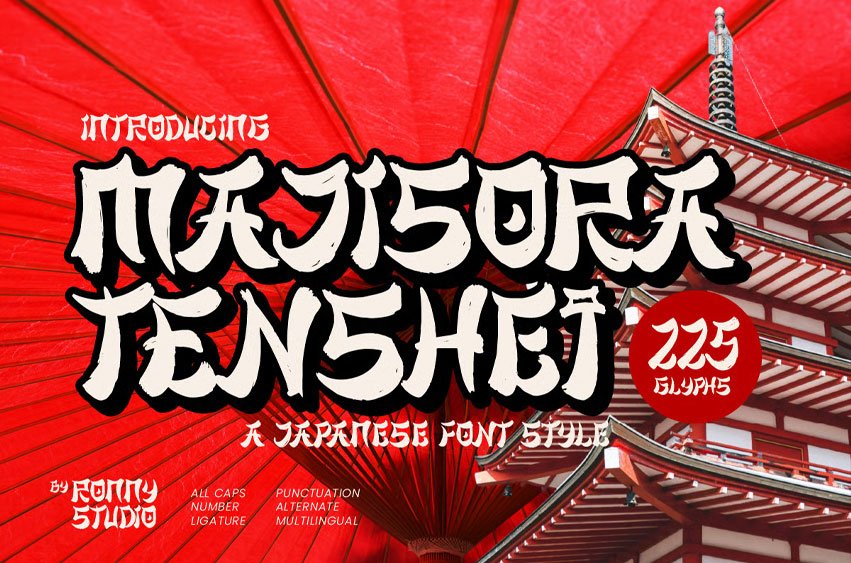
Majisora Tenshei Font is a bold and expressive Japanese-inspired typeface that captures the spirit of traditional brush calligraphy. Designed to deliver strong visual impact, this font blends classic Eastern aesthetics with a modern, dynamic feel—perfect for creative projects that require authenticity and cultural depth.
Ideal for use in branding, film titles, posters, book covers, logos, visual identities, packaging design, digital art, and any project seeking a distinctive Japanese atmosphere.
Developed by Ronny Studio, Majisora Tenshei offers smooth curves, bold strokes, and artistic flow that elevate your typography to a new level.
Font Features:
- Uppercase & Lowercase (All Caps Design)
- Alternates & Ligatures